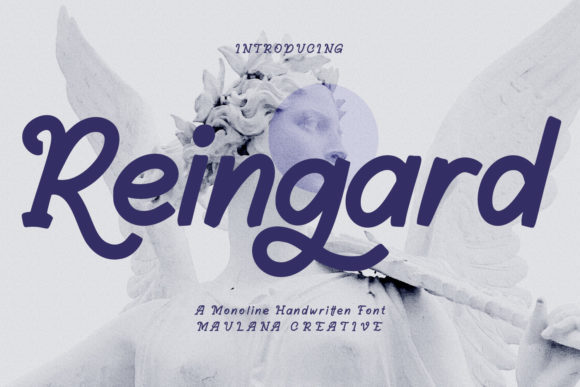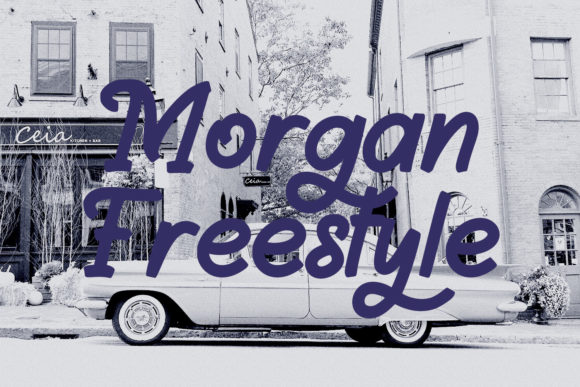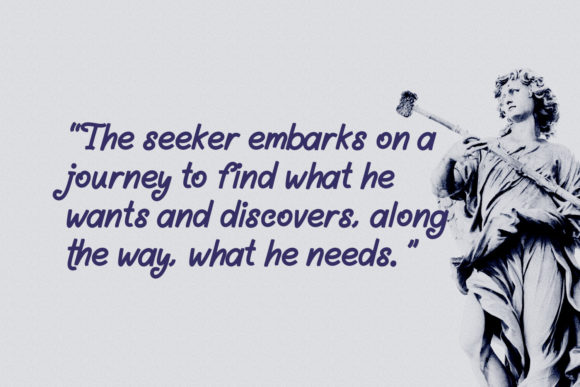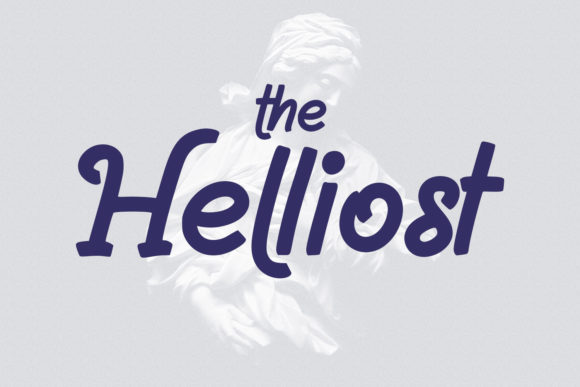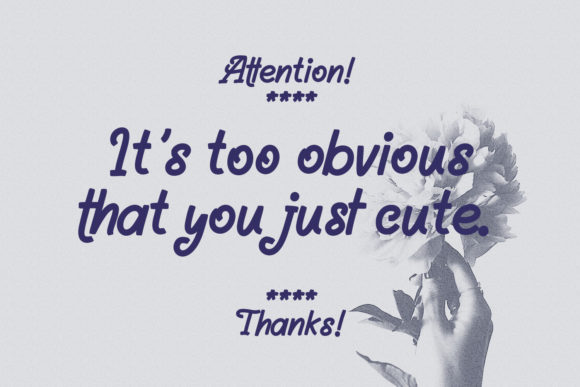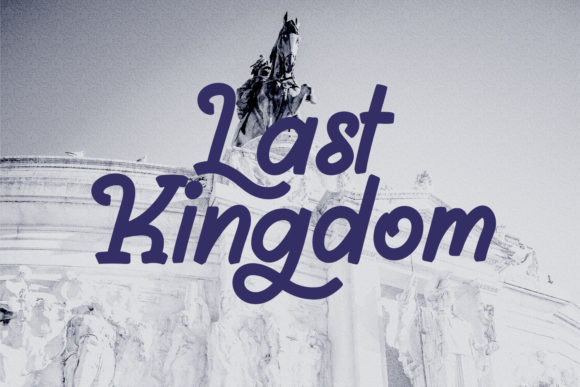
About Reingard Font
Reingard is a vintage styled, paint brushed script font. It features medium contrast strokes, fun characters with a bit of ligatures and alternates. Add it to any of your designs, and enjoy the results!